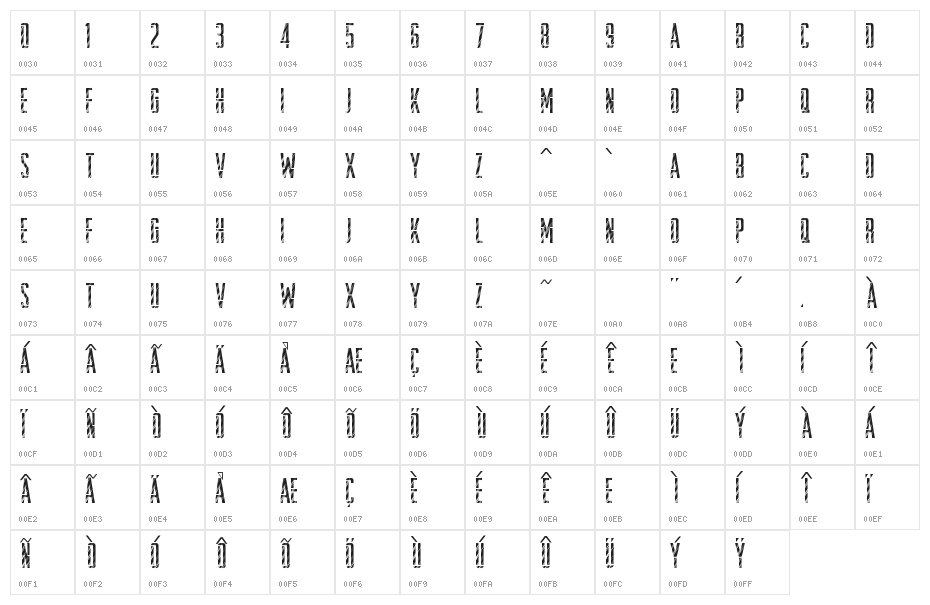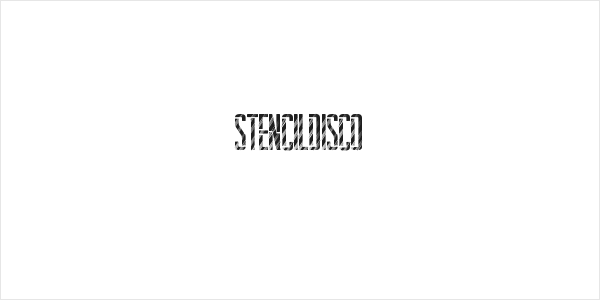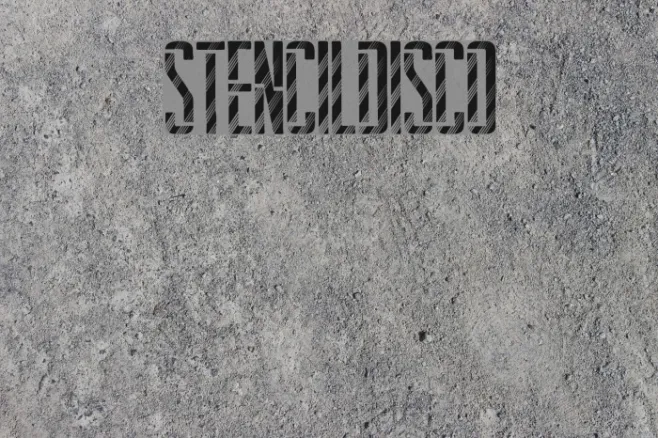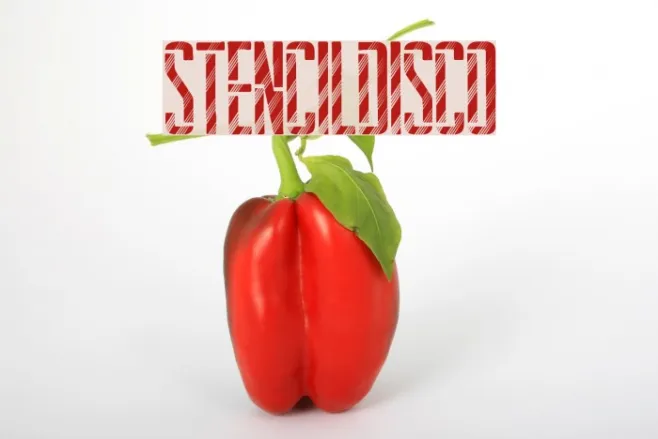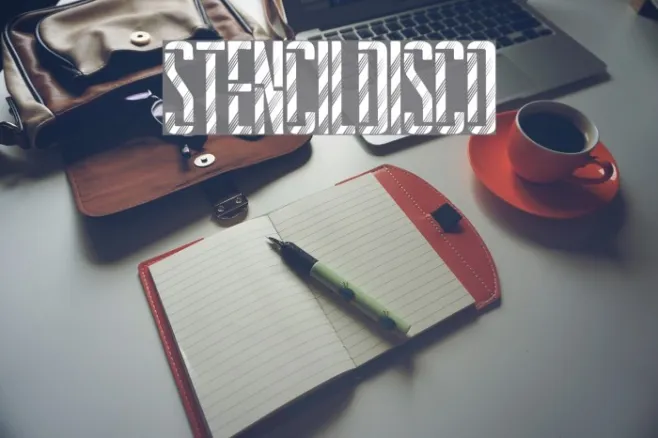
StencilDisco Font
StencilDisco Description
This font features a bold and dynamic stencil design, characterized by its distinct cut-out sections within each letterform. The diagonal lines add a sense of movement and energy, making it stand out as a display typeface. The uppercase letters are prominent, with a uniform height and width, creating a cohesive and structured appearance. The numbers follow the same stylistic approach, ensuring consistency across all characters. The special characters maintain the same stencil effect, providing a complete and versatile set for creative projects.
| Proposed Projects | Ideal for posters, branding, and any project requiring a bold, eye-catching typeface. |